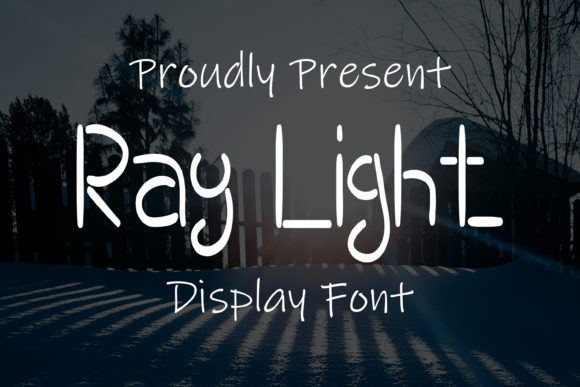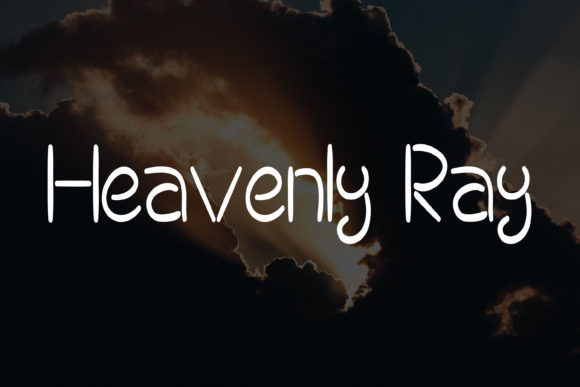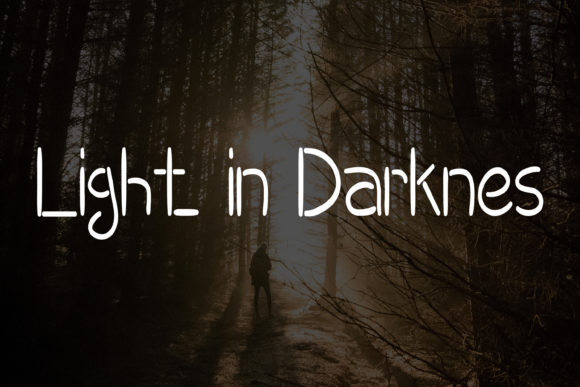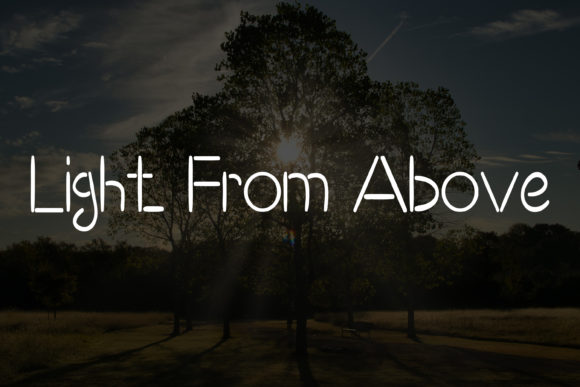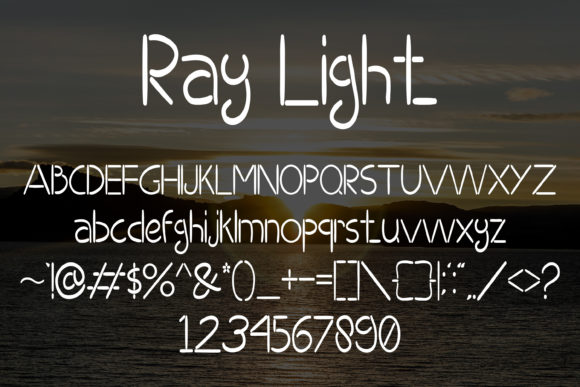
About Ray Light Font
Ray Light is a friendly handwritten font with well-rounded characters and a cursive style. It is perfect for elegant and delicate projects ranging from wedding invitations to birthday cards, name tags, and more!